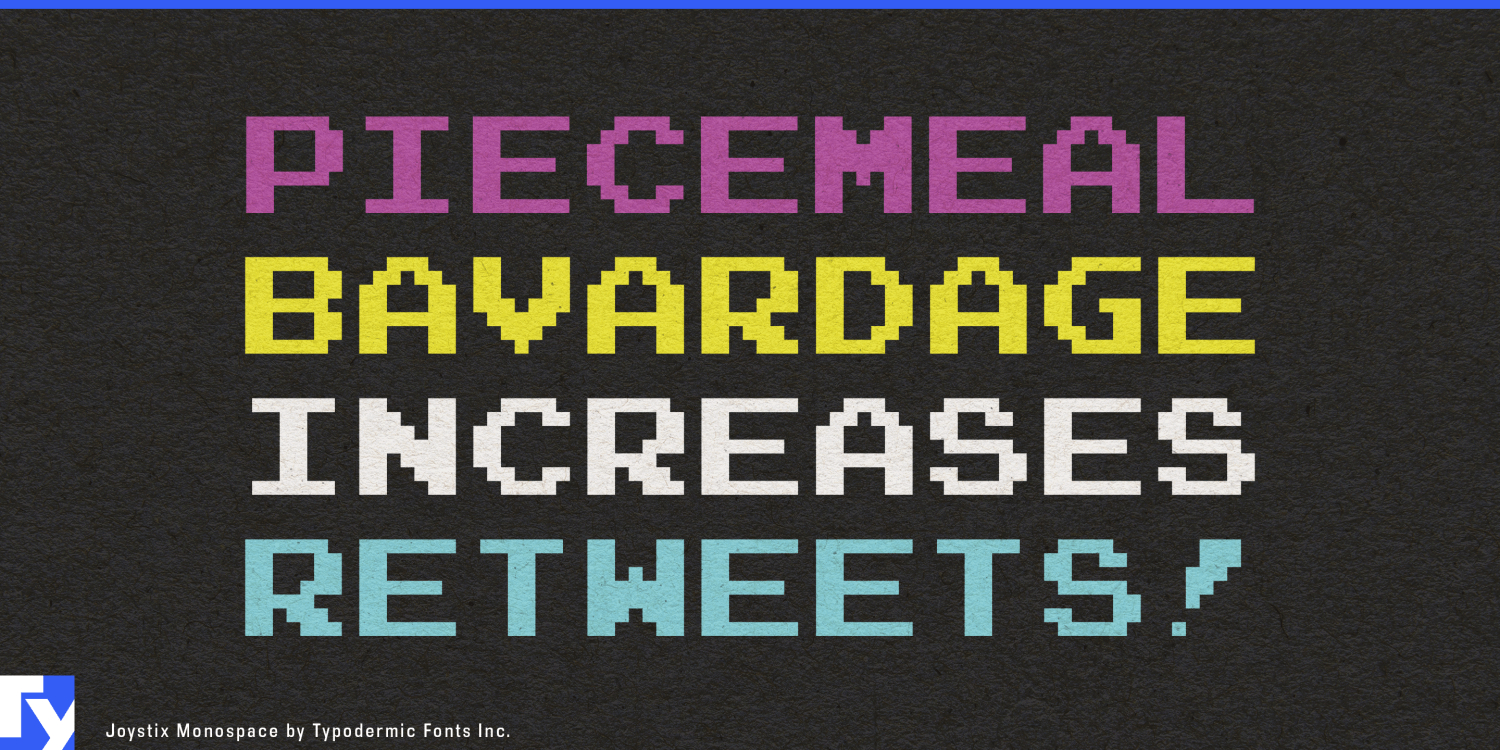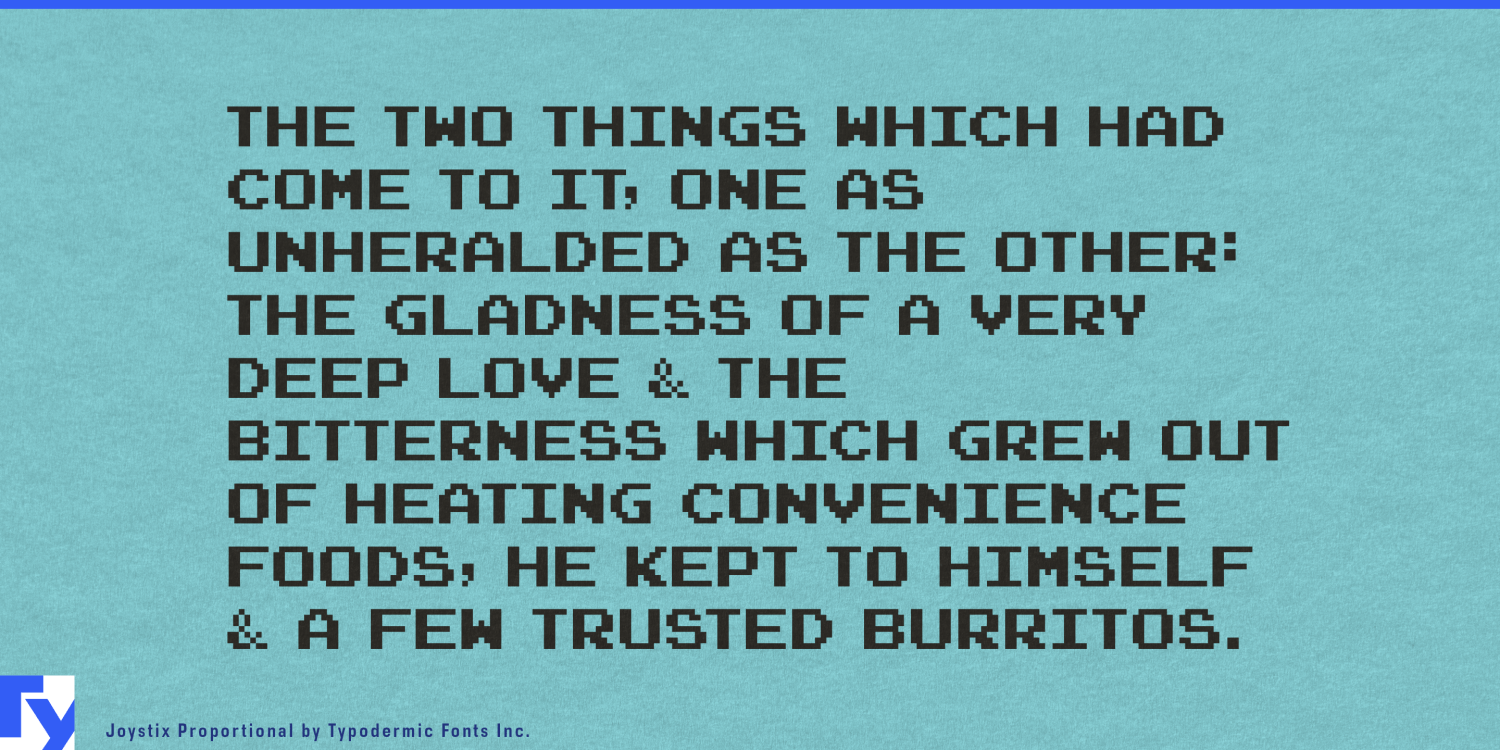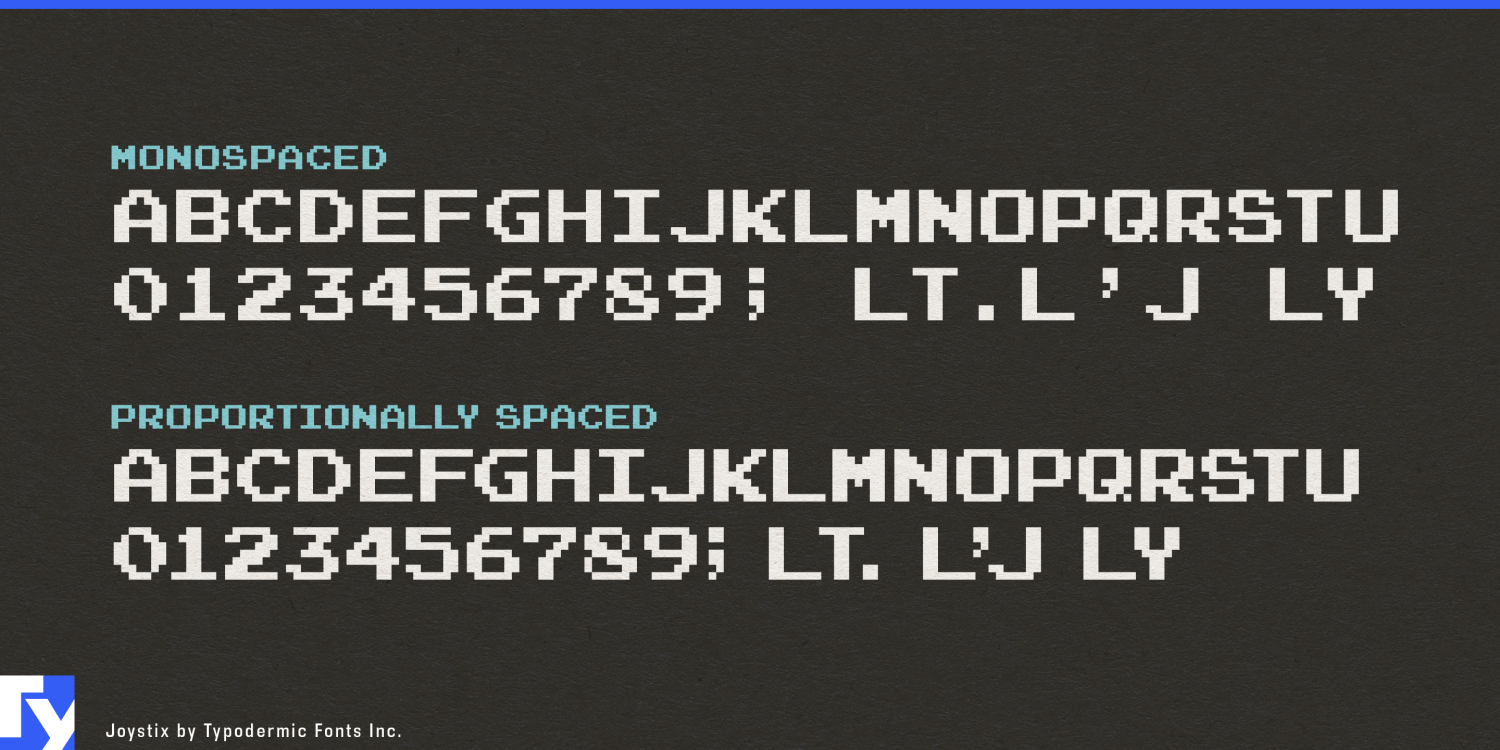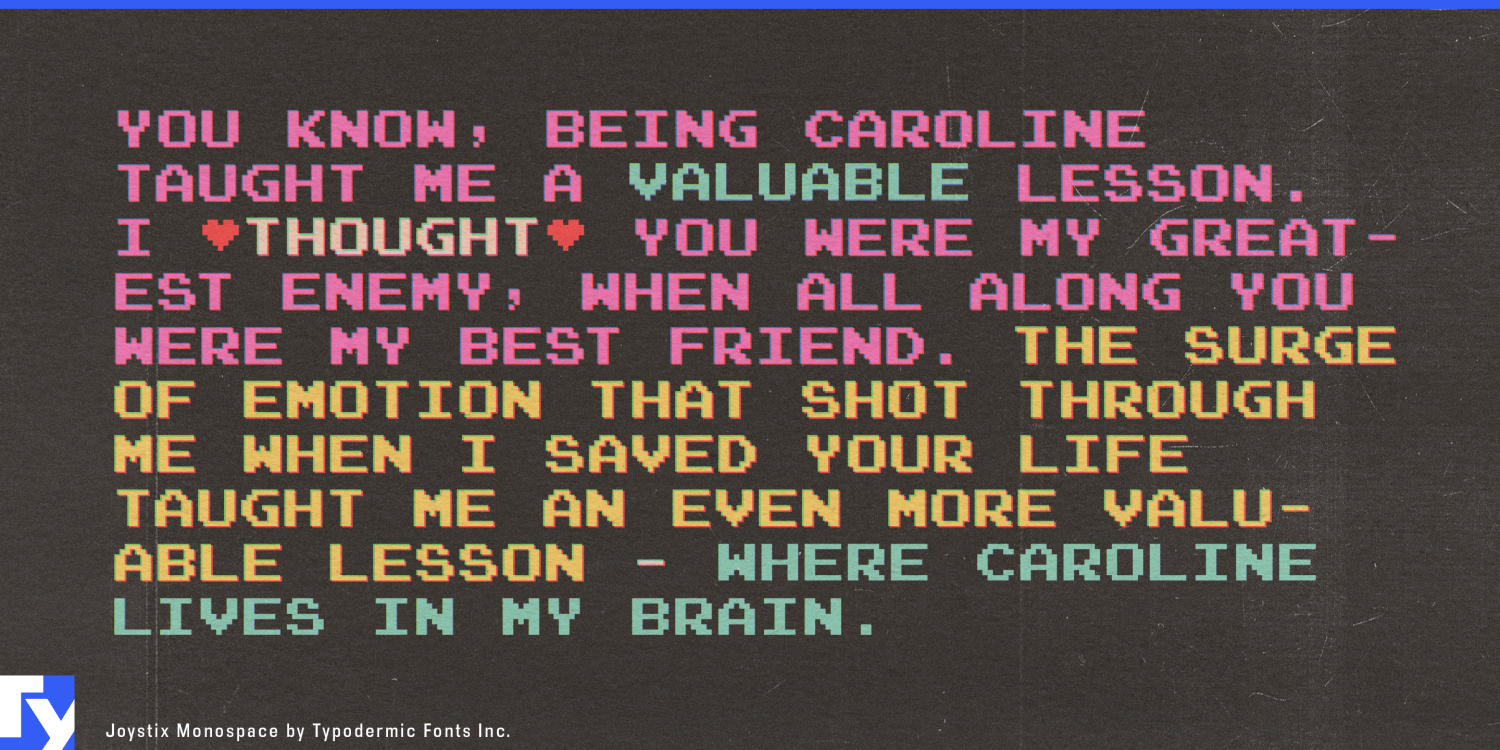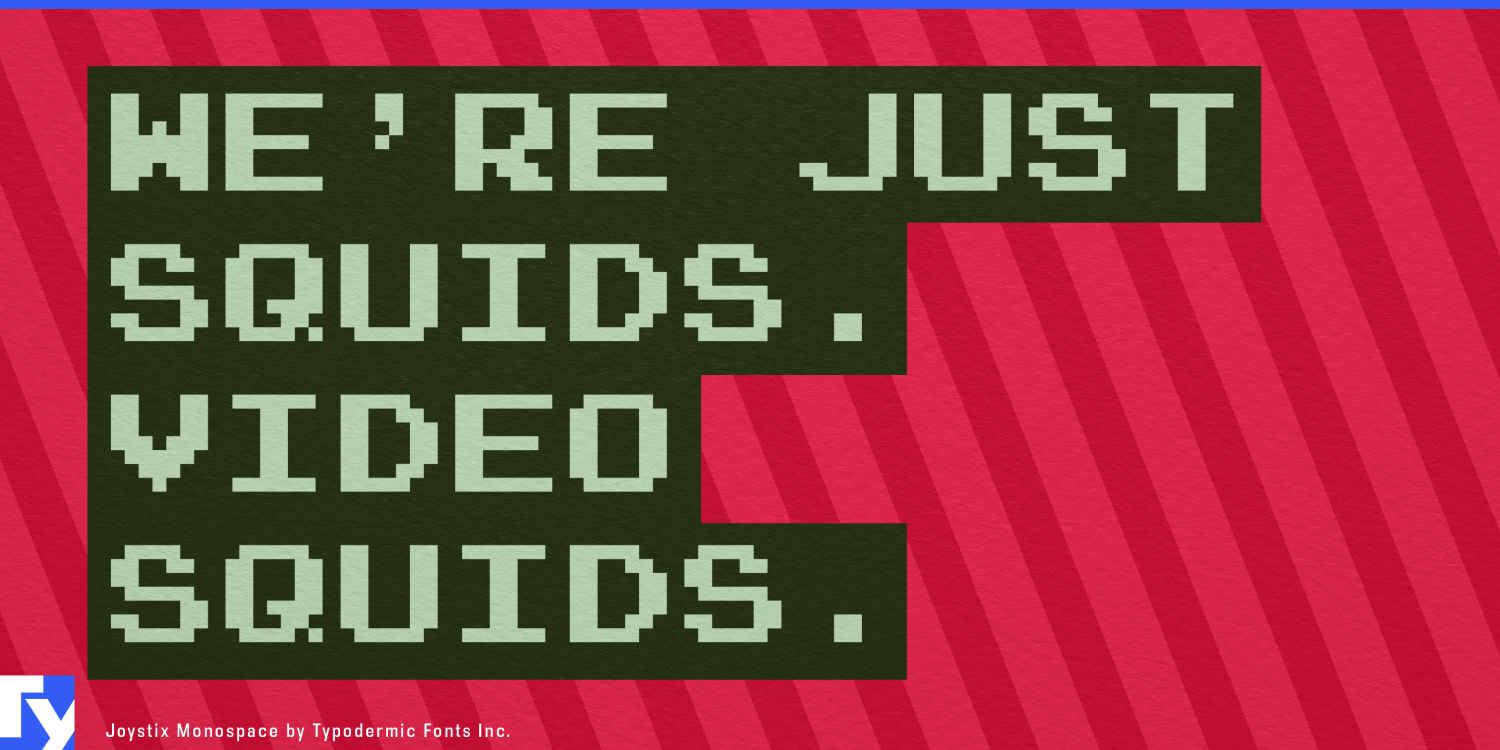
About Joystix
Joystix transports you to the golden age of arcade gaming, capturing the essence of 1980s pixel art in a typeface that’s both nostalgic and surprisingly versatile. This meticulously crafted font family brings the iconic aesthetics of classic video…